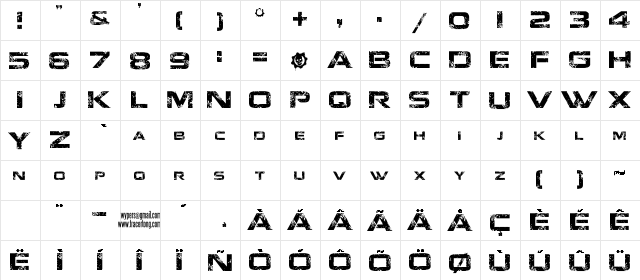
Jacinto Sans Regular
Jacinto Sans is a composed and adaptable typeface that performs quietly and consistently across a wide range of design contexts.